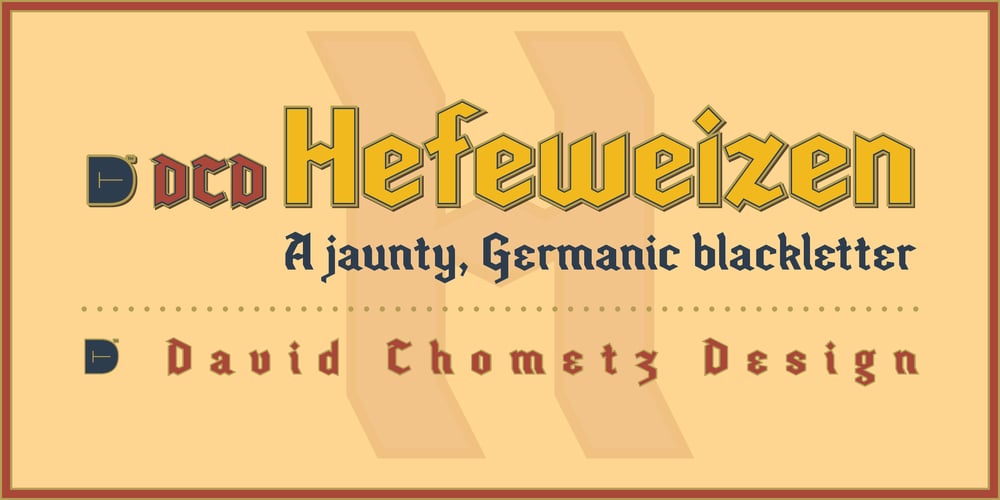
Hefeweizen Font Family was designed by David Thometz and published by David Thometz Design. Hefeweizen contains 6 styles and family package options. As seen on Typophile.com, DTD Hefeweizen is a contemporary take on the textura blackletter style. Comprised of straight lines and angles sloped at ratios of 1/2 or 2/1, Hefeweizen is a highly geometric design with extensive alternates and ligatures.